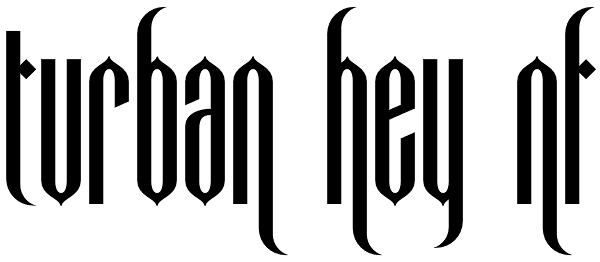
Turban Hey NF
The “Moorish arch” treatment of certain letters on a 2001 book on Dutch design, executed by René Knip, provided the inspiration for this exotic unicase typeface. The font also includes arabesque designs in the brace, florin and section mark...